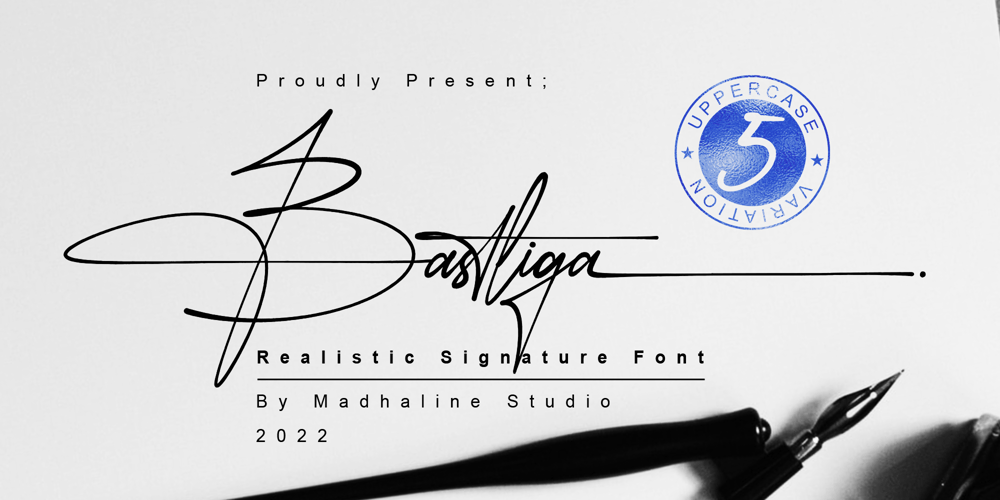
Bastliga Signature Font Family was designed by Achmad Hanif Ulinuha and published by Madhaline Studio. Bastliga Signature contains 6 styles and family package options. Bastliga is a signature font that has its own uniqueness and characteristics from a signature font, because it is handwritten manually, so it has the impression of a true signature. This font is carefully crafted with a modern touch. This font looks elegant, luxurious, natural with a beautiful signature touch.Bastliga would perfect for photography, watermark, social media posts, advertisements, logos & branding, invitation, product designs, label, stationery, wedding designs, product packaging, special events or anything that need signature taste. Your download will include 4 font files;~ Bastliga One, Two, Three, Four and Five A hand-made, all characters brush font which has a complete set of A-z characters. Includes a range of multilingual support, punctuation, ligature & alternate.~ Bastliga Tail A bonus set of 52 Uppercase & Lowercase with tail. Simply select this font and type any A-Z & a-z character to create one of the bonus elements.